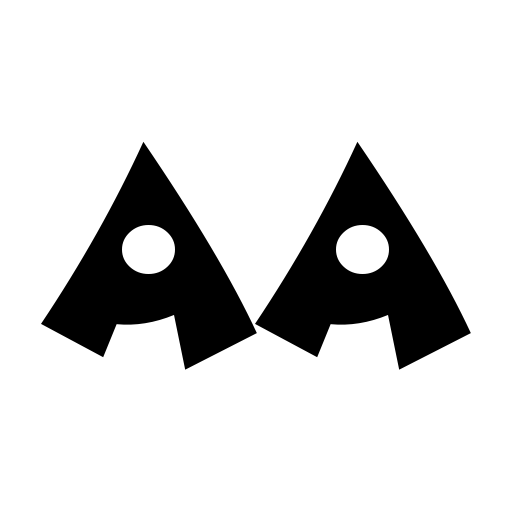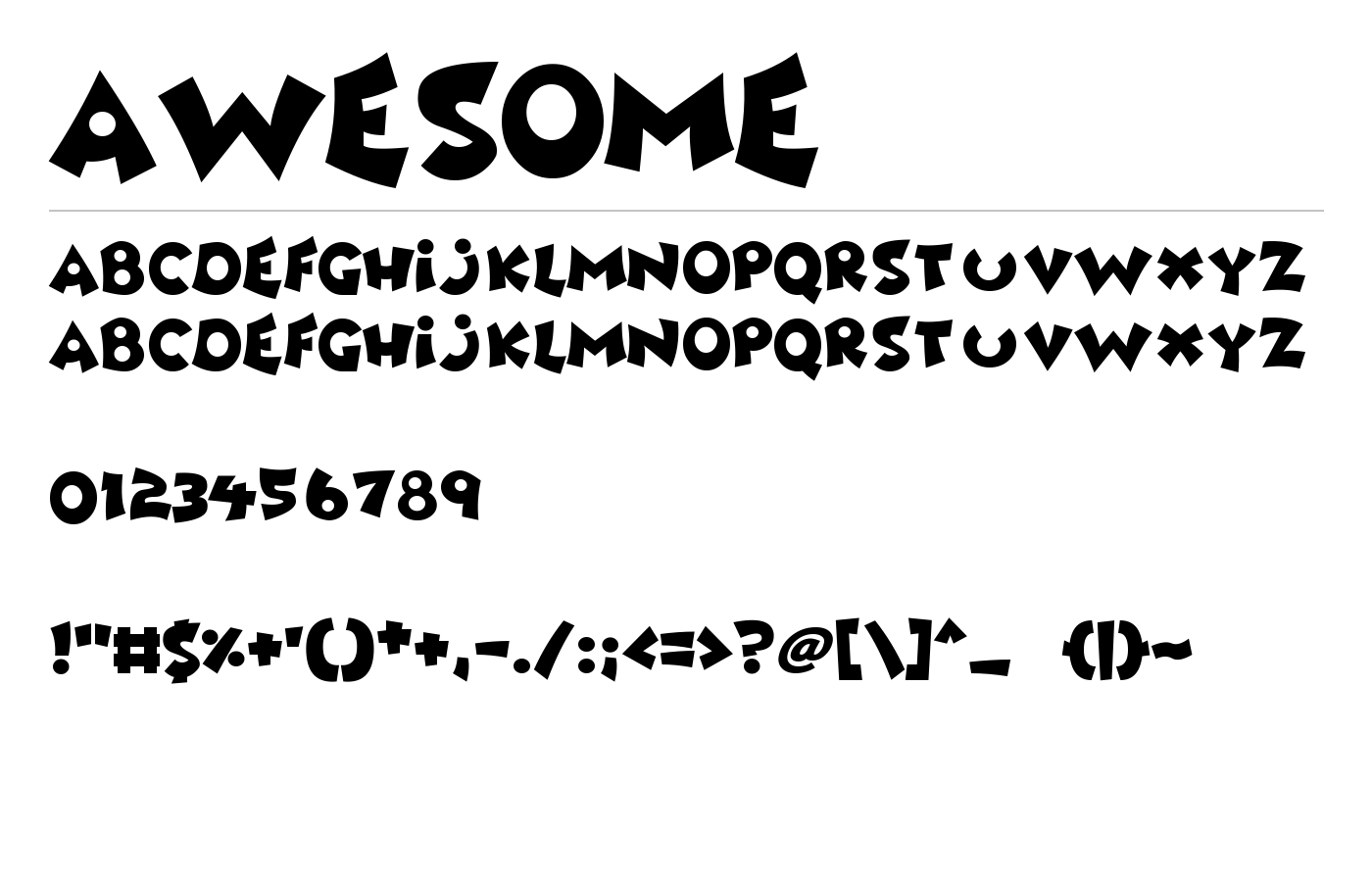
Awesome Font is a bold and playful sans serif typeface with chunky, irregular shapes that give it a fun, dynamic personality. Its strong weight and quirky letterforms make it perfect for eye-catching headlines, posters, and branding that needs a lively, informal vibe. This font works well for creative projects and youthful brands aiming to convey energy and friendliness.
Awesome Font
About Awesome Font